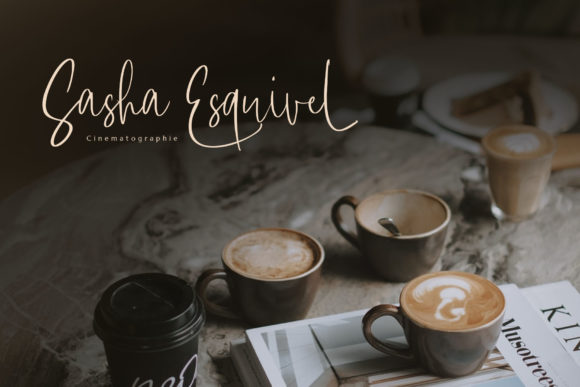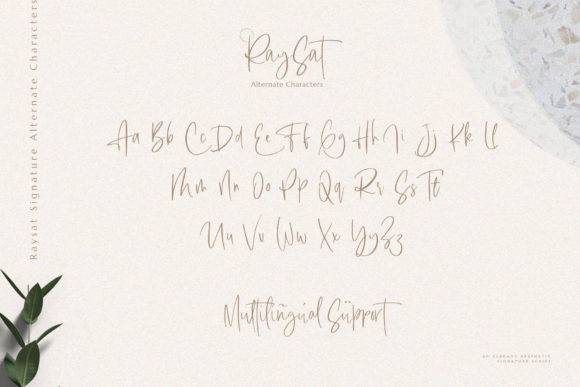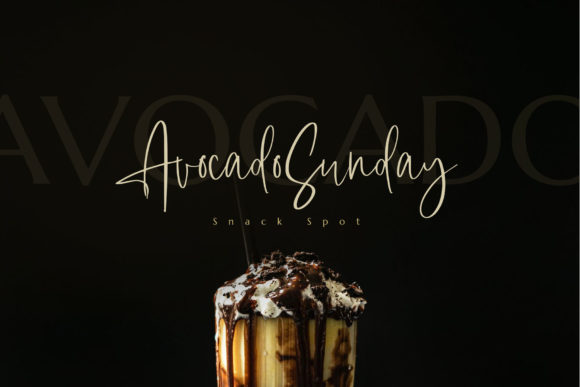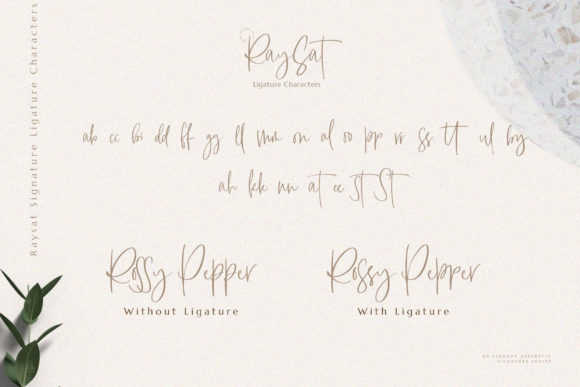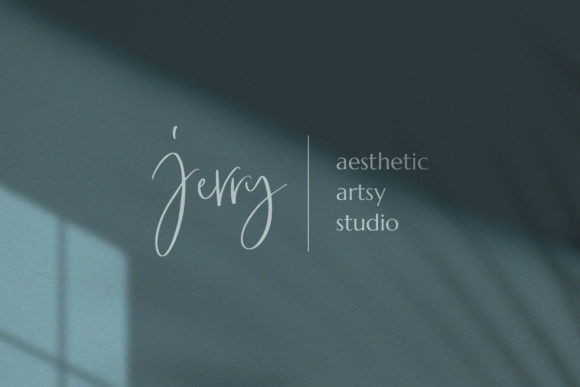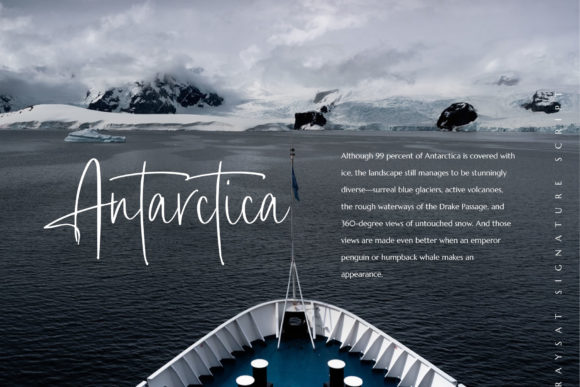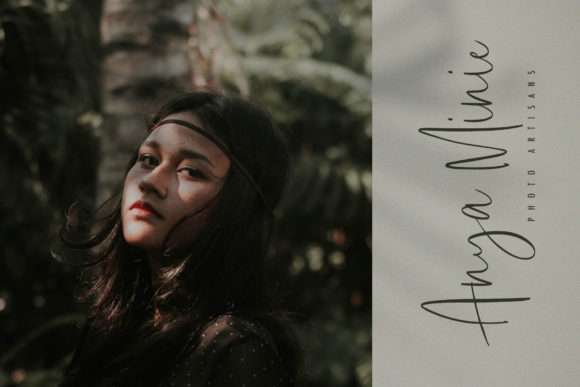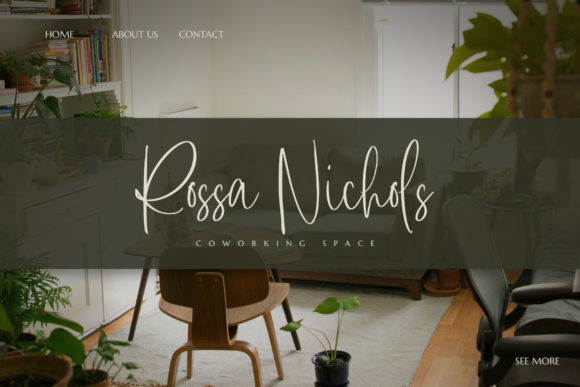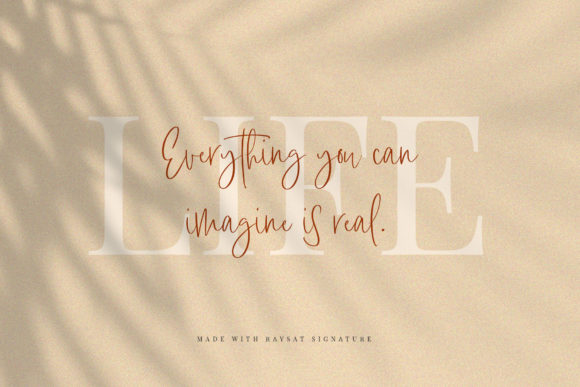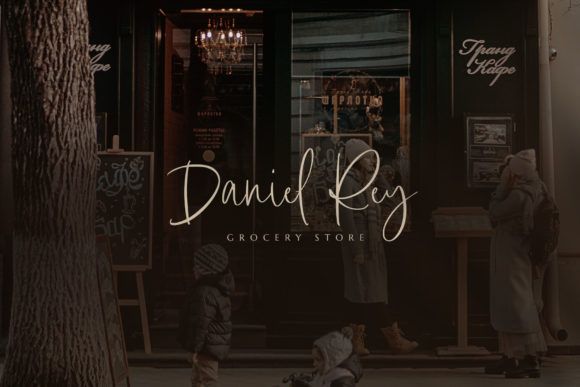
Raysat Font
About Raysat Font
Raysat is a magical handwritten font carefully created with a touch of elegance. This is a beautiful combination of timeless elegance and authentic calligraphy. It features an incredibly classic style, while still keeping a friendly feel. This font is the perfect font for making original and outstanding designs.